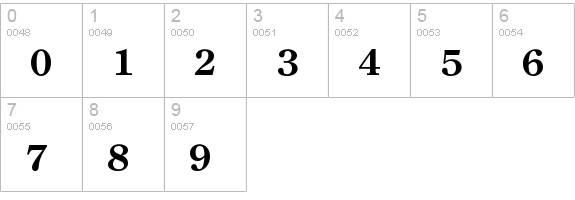
CenturyOldStyTEE Bold Font Details
CenturyOldStyTEE Bold is a strong, high-contrast variant in the CenturyOldStyTEE typeface family \xE2\x80\x94 well suited to headlines, attention-grabbing titles, and strong calls-to-action.
CenturyOldStyTEE Bold font is a timeless and elegant typeface that exudes sophistication and grandeur. With its classic and refined design, this font is perfect for creating eye-catching headlines, logos, and other design projects that require a touch of vintage charm. What sets CenturyOldStyTEE Bold font apart is its versatility and readability, making it suitable for a wide range of design applications. Whether you're working on a print or digital project, this font will add a touch of elegance and flair to your work. Best of all, CenturyOldStyTEE Bold font is available for free download at FontsMarket.com. So you can add this stunning typeface to your font collection without any cost. Don't miss out on the opportunity to enhance your designs with this beautiful and classic font. Download CenturyOldStyTEE Bold font today and elevate your design projects to new heights!